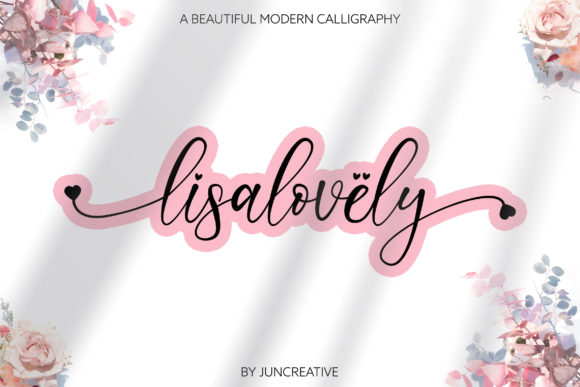
Unleash the captivating allure of your designs with Lisalovely, a script font family crafted to enchant and inspire. Its graceful curves and playful demeanor bring a touch of whimsical charm to every word, creating a visual symphony that captivates the senses.
Step into a world of elegance and sophistication with Lisalovely, a font collection that exudes modern grace. Its delicate strokes and sweeping flourishes evoke a sense of timeless beauty, making your words shine with a refined and polished allure.
With Lisalovely by your side, your designs will blossom into masterpieces that captivate and enthrall. Let your imagination run wild as you explore the endless possibilities it offers, turning your creative visions into tangible realities.
Dive into the depths of Lisalovely's versatility and discover a font family that adapts seamlessly to your every need. Whether you're crafting elegant invitations, designing captivating logos, or creating eye-catching social media posts, Lisalovely effortlessly elevates your words, transforming them into works of art.
Experience the transformative power of Lisalovely, a font that ignites passion and ignites creativity. Its enchanting aura will cast a spell on your audience, leaving them spellbound by the sheer beauty and elegance of your designs.
Embrace the magic of Lisalovely and embark on a journey of boundless creativity. Its captivating charm will weave its way into your designs, enchanting your audience and leaving them utterly captivated by your artistic prowess.